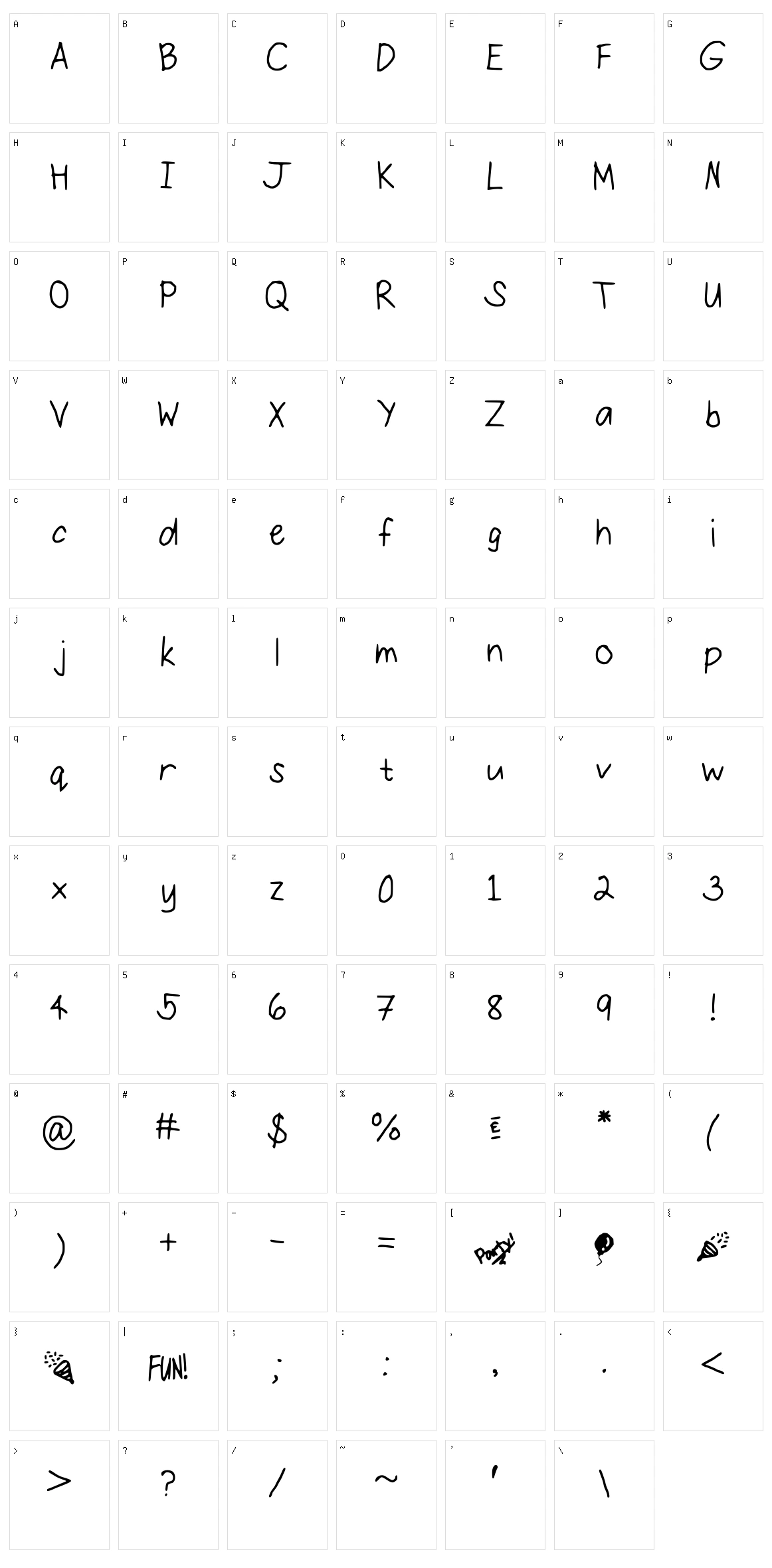
The free font Confetti Falling is carefully designed by Font Fabulous, showcasing a thoughtful balance of creativity and usability and falls under the Script font style. When you download the ZIP file, it contains only 223.77 KB of font files, making it lightweight and quick to download. Please review the license details below to understand permitted usage and distribution rights. If license information is not available, we recommend using this font for personal projects only or contacting the author directly for commercial usage permissions.